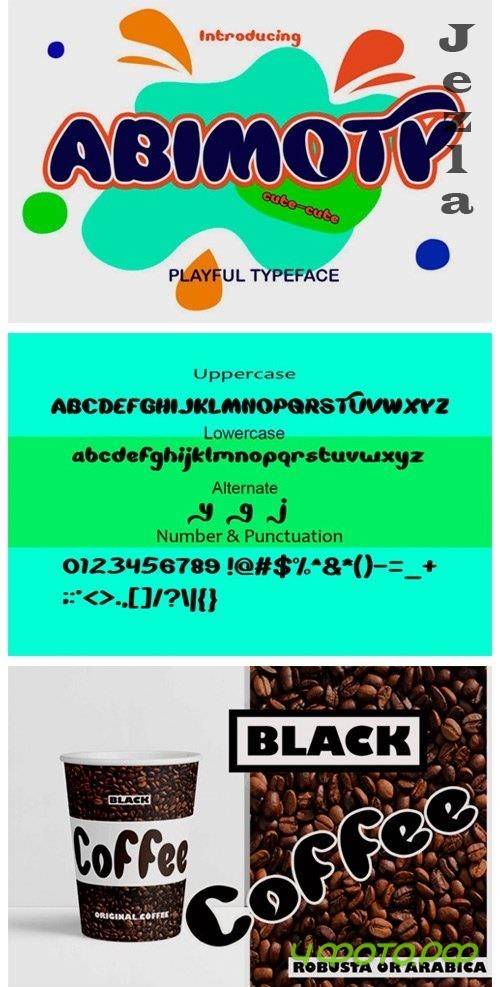
Abimoty Font
Abimoty is a great display font. It features a cartoon style that makes it perfect for comic covers, posters, book covers and much more!